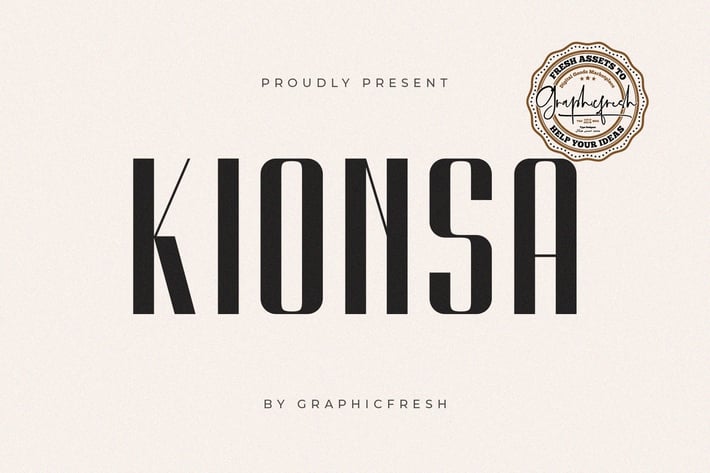
Kionsa - An Ultra Condensed Font
Kionsa - An Ultra Condensed Font and minimalist character! it's perfect for logos, name cards, magazine layouts, invitations, headers, or even large-scale artwork.
- Kionsa - A clean & Slant version sans serif font including upper & lowercase characters (ALL CAPS), numerals and more of symbols.